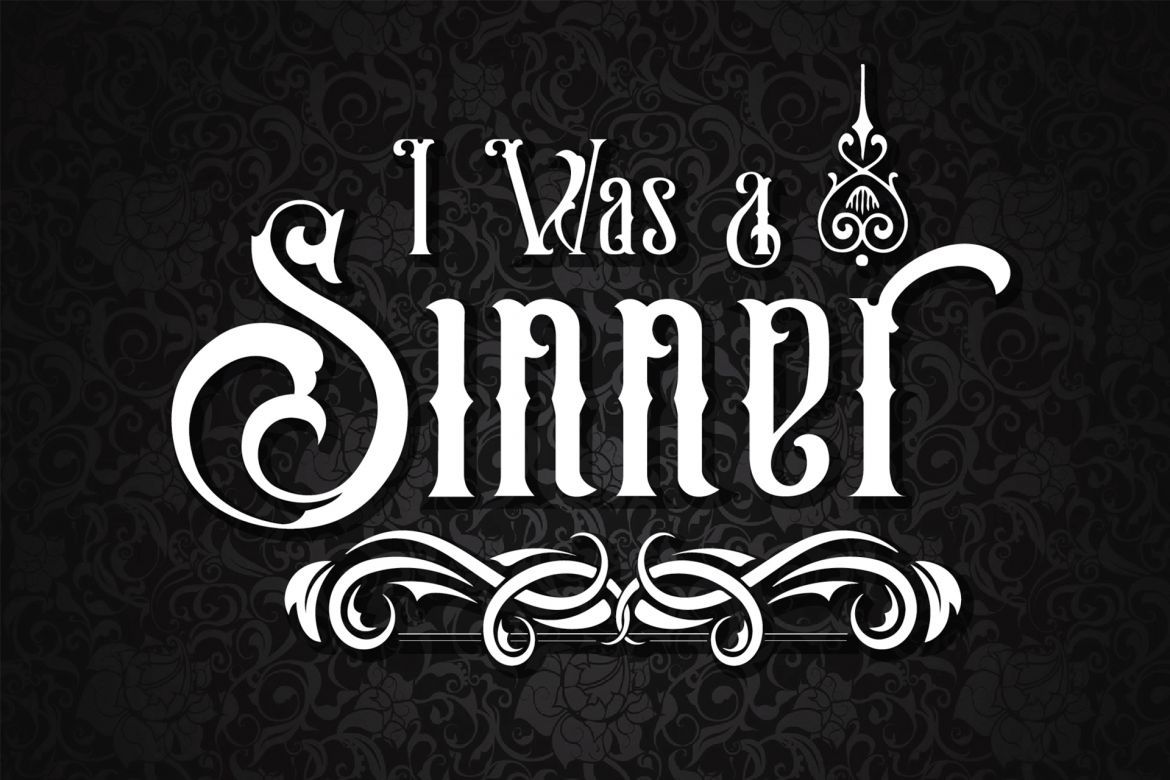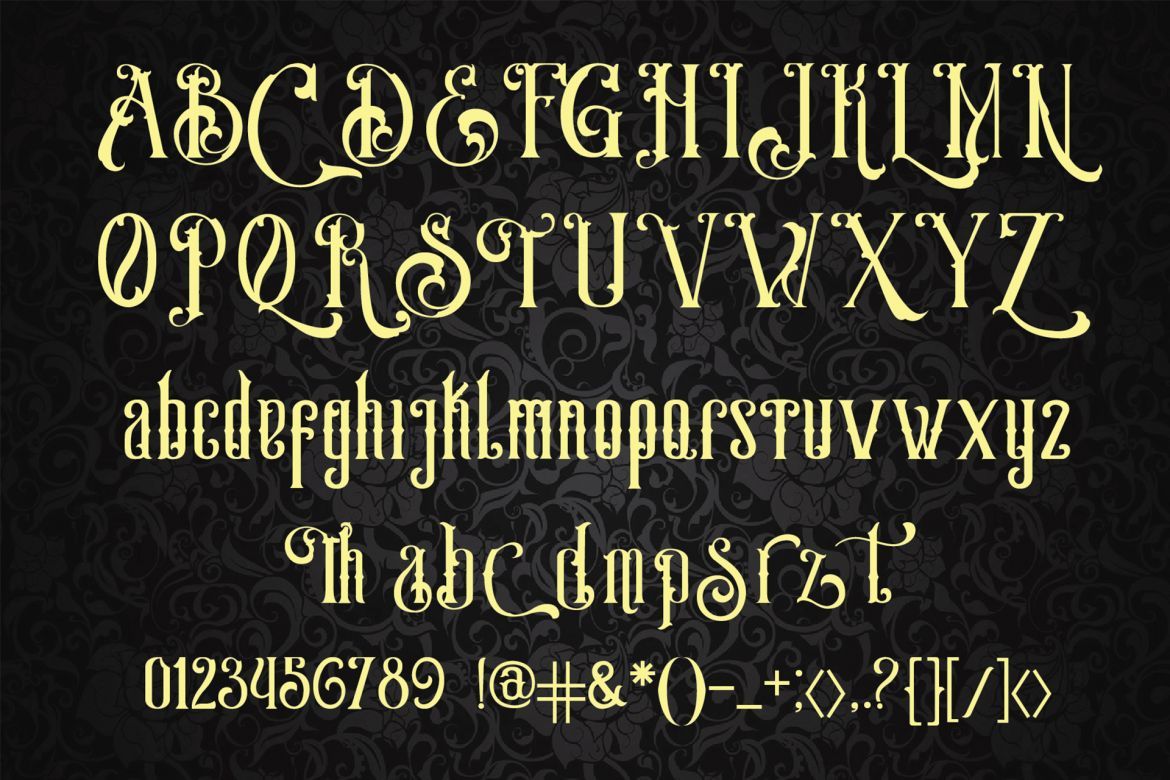
Esentrik Oriental Font
-- Powerful / Elegant / Vintage style --
Esentrik is a strong font with vintage style. Inspired by Vintage movie poster with a oriental look. it's perfect to use it with great ornament will give your design elegant oriental look.
USE Esentrik works great in any branding, logos, magazines, films.
• clean vector for logo
• original hand drawing font
• perfect for vintage design style